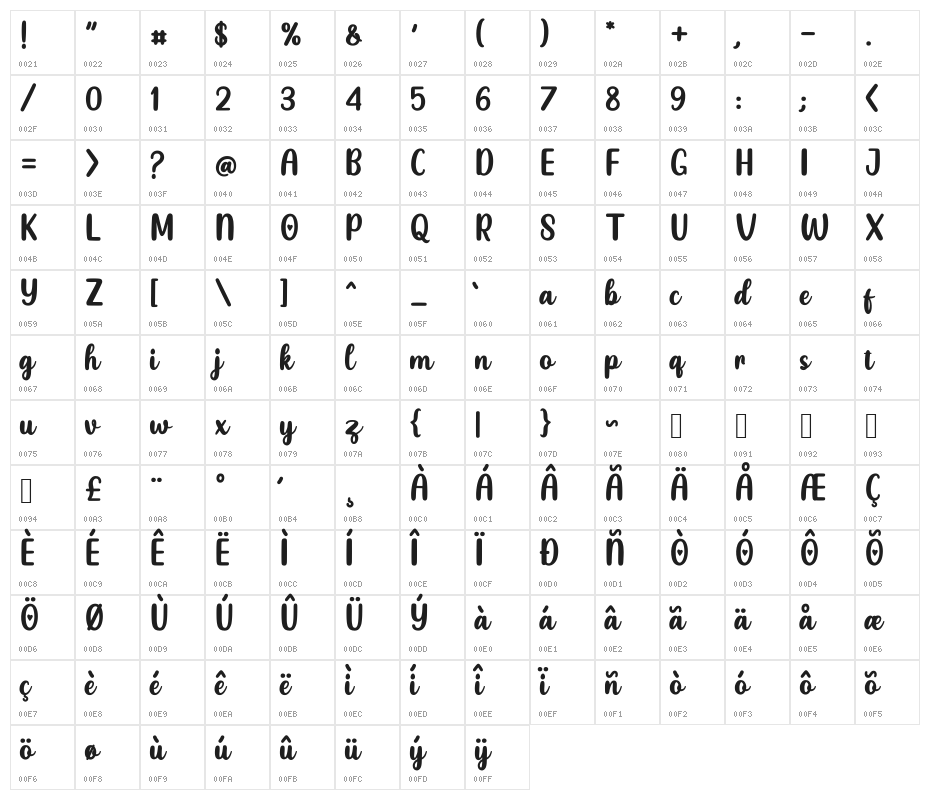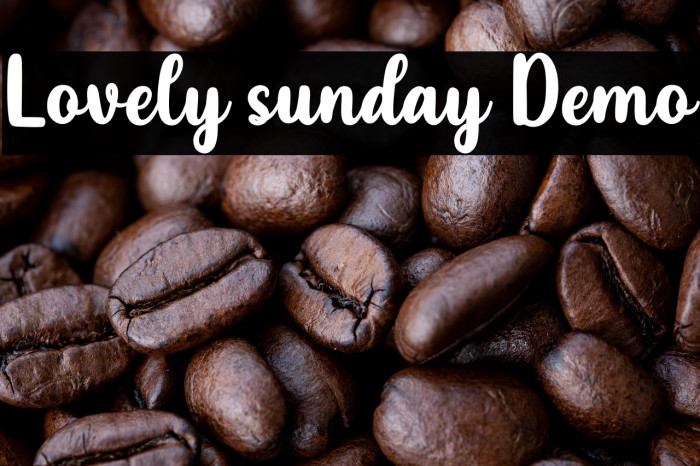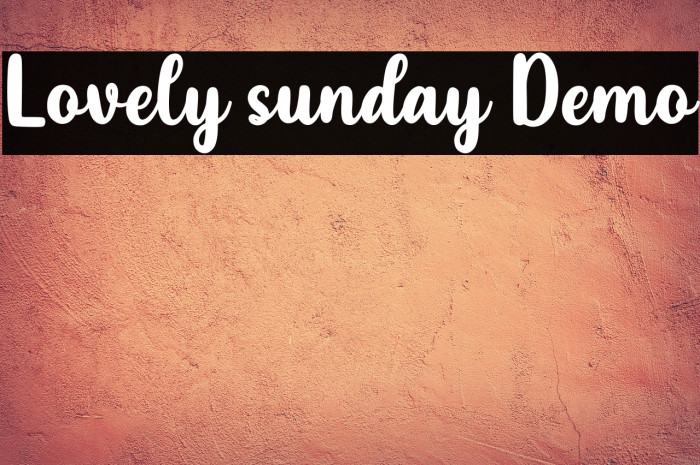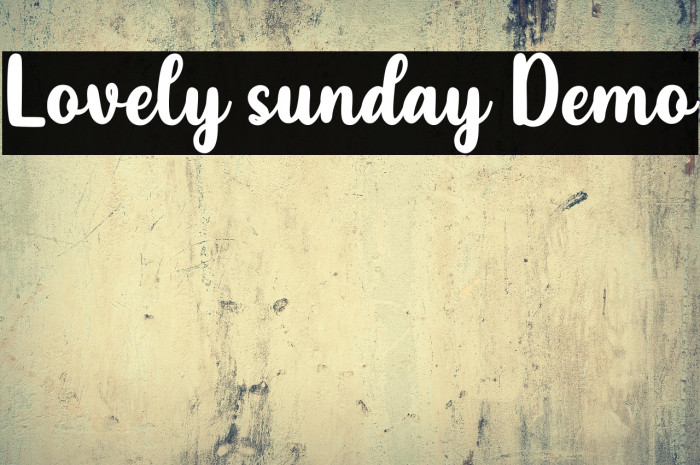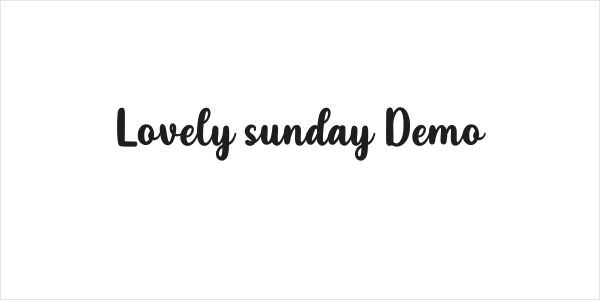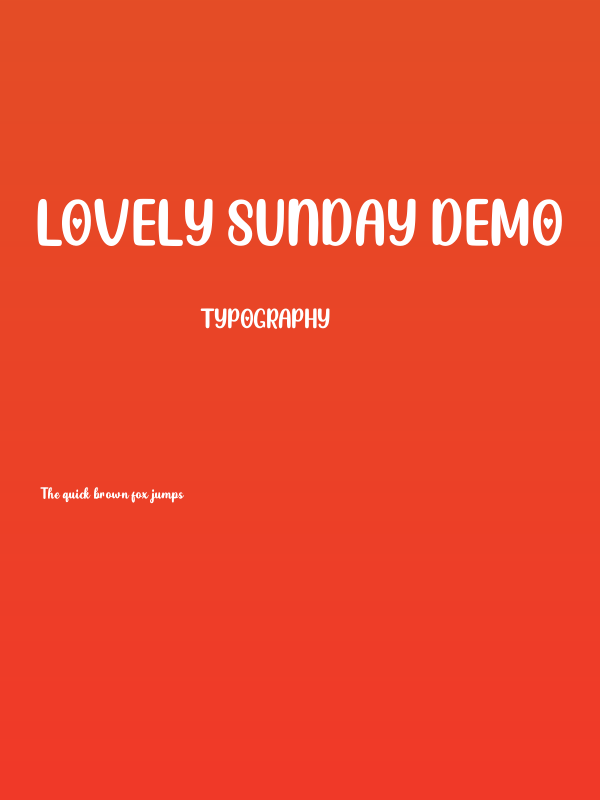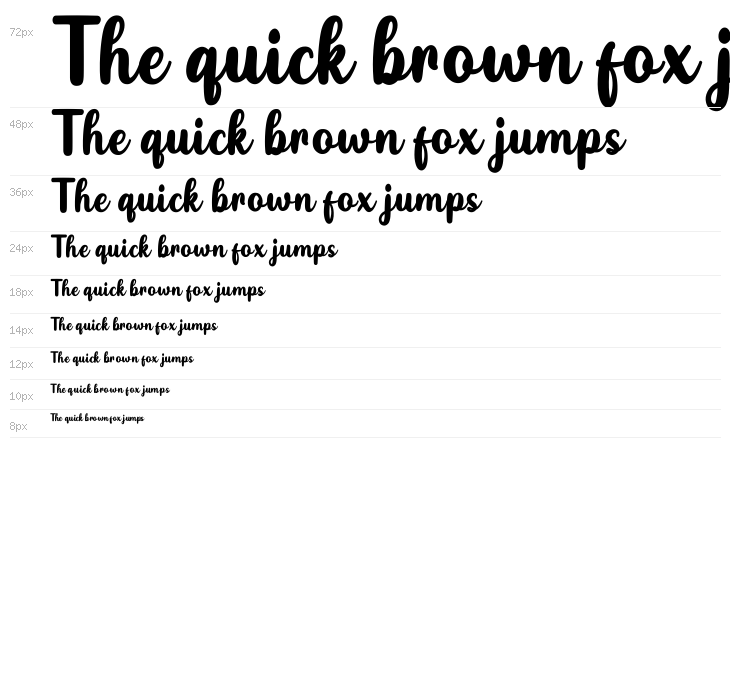
Lovely sunday Demo Font
Lovely sunday Demo Description
This font features a playful and whimsical style, characterized by its bold and rounded letterforms. The uppercase letters are uniform in height with a consistent stroke width, giving them a strong presence. The lowercase letters exhibit a cursive, handwritten quality, adding a touch of elegance and fluidity. Numbers are clear and legible, maintaining the bold aesthetic. Special characters are creatively designed, complementing the overall playful theme. This font is perfect for projects that require a fun and engaging look, such as children's books, greeting cards, or playful branding.
Overall StylePlayful
Use CaseHeadlines, Logos, Invitations
Proposed ProjectsIdeal for children's books, greeting cards, playful branding, and creative invitations.